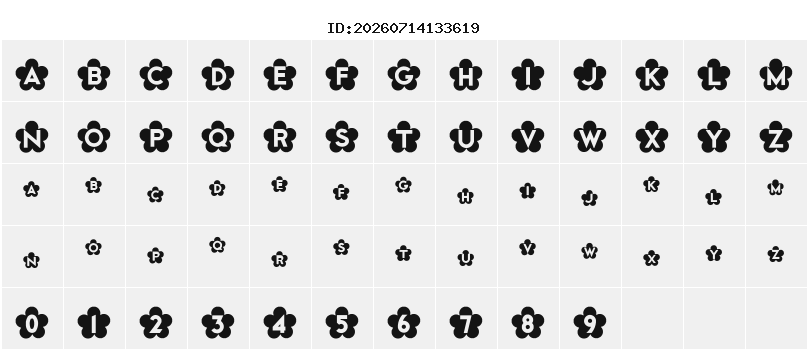
HB FontHANA Preview
• Font Name: HB FontHANA
• Full Font Name: HB FontHANA
About HB FontHANA.ttf
HB FontHANA.ttf is a modern, elegant sans-serif font designed for ultimate readability and visual harmony. Perfect for branding, headlines, web design, and print materials.